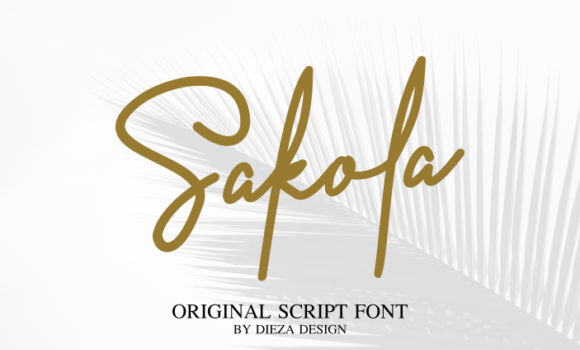
sakola
Sakola Font – Free Download Introduction to Sakola Font Sakola is a cute handwritten font with a sweet style and unique personality. 📸 Preview Gallery 4 images 📌 Product Name Sakola Font 👤 Author Dieza Art 📂 Category Explore ⬇️